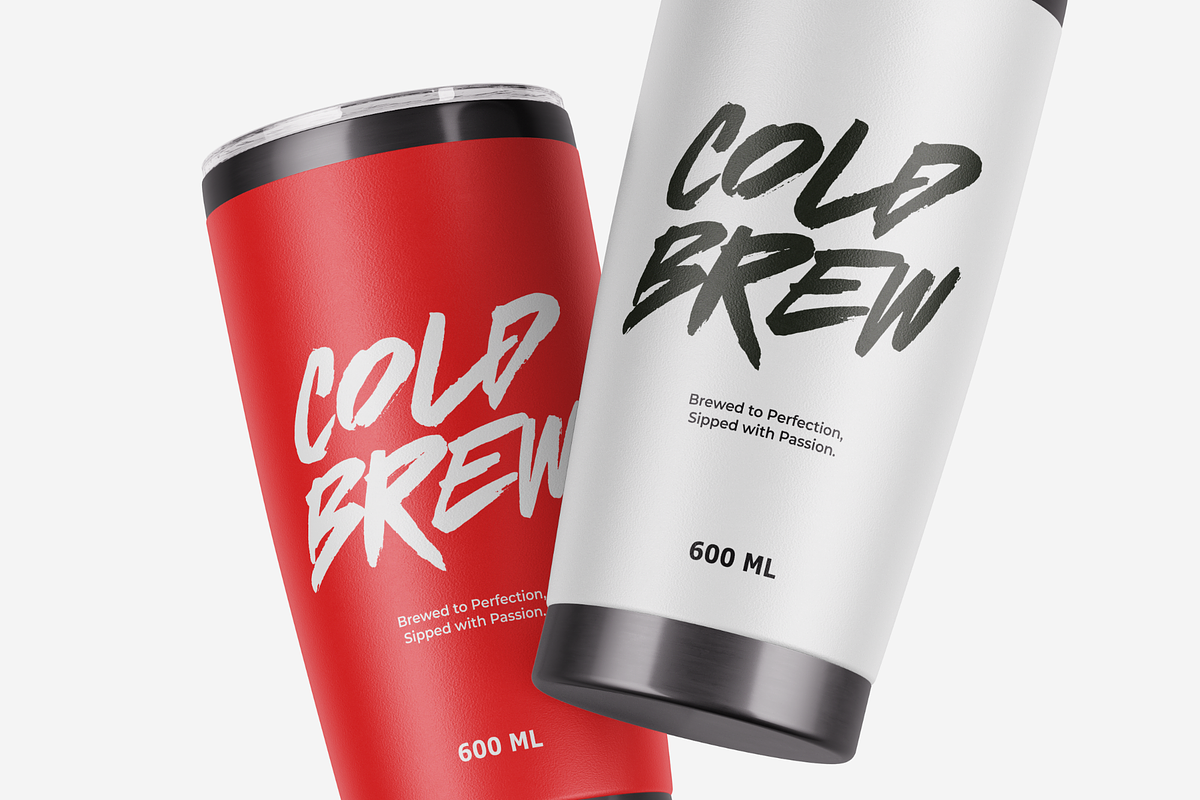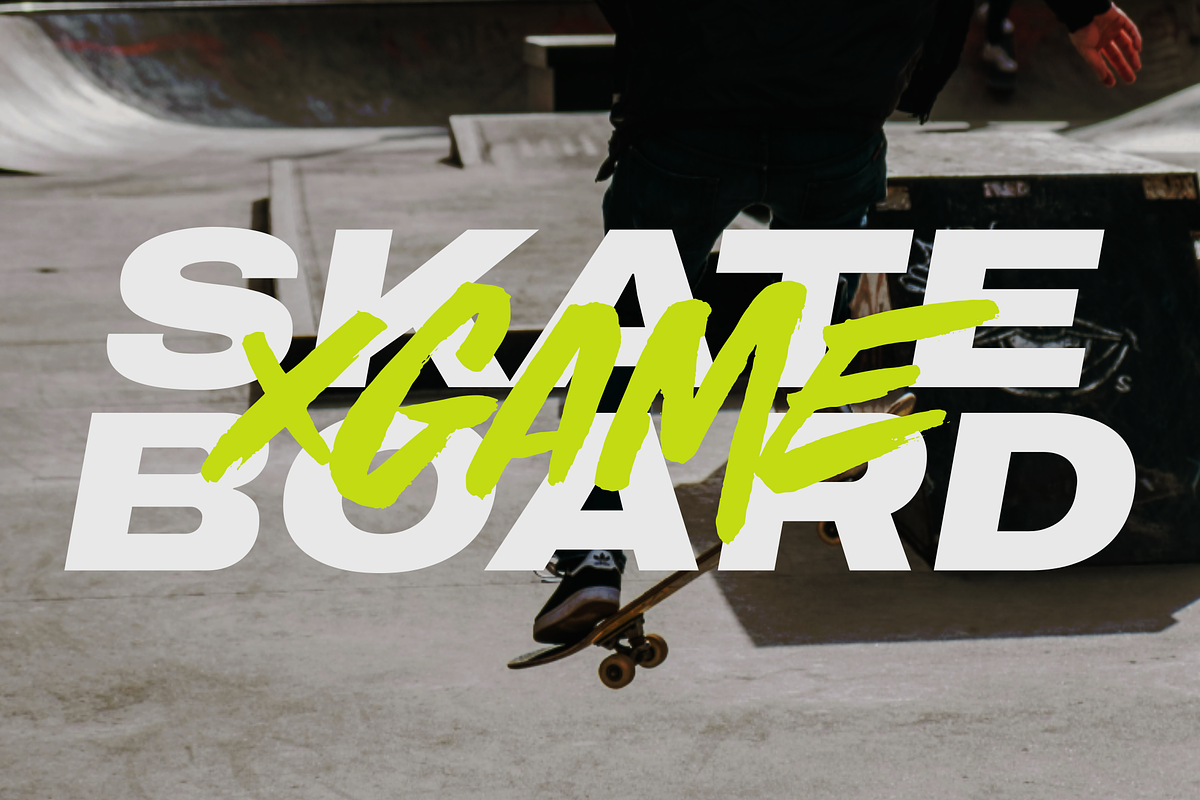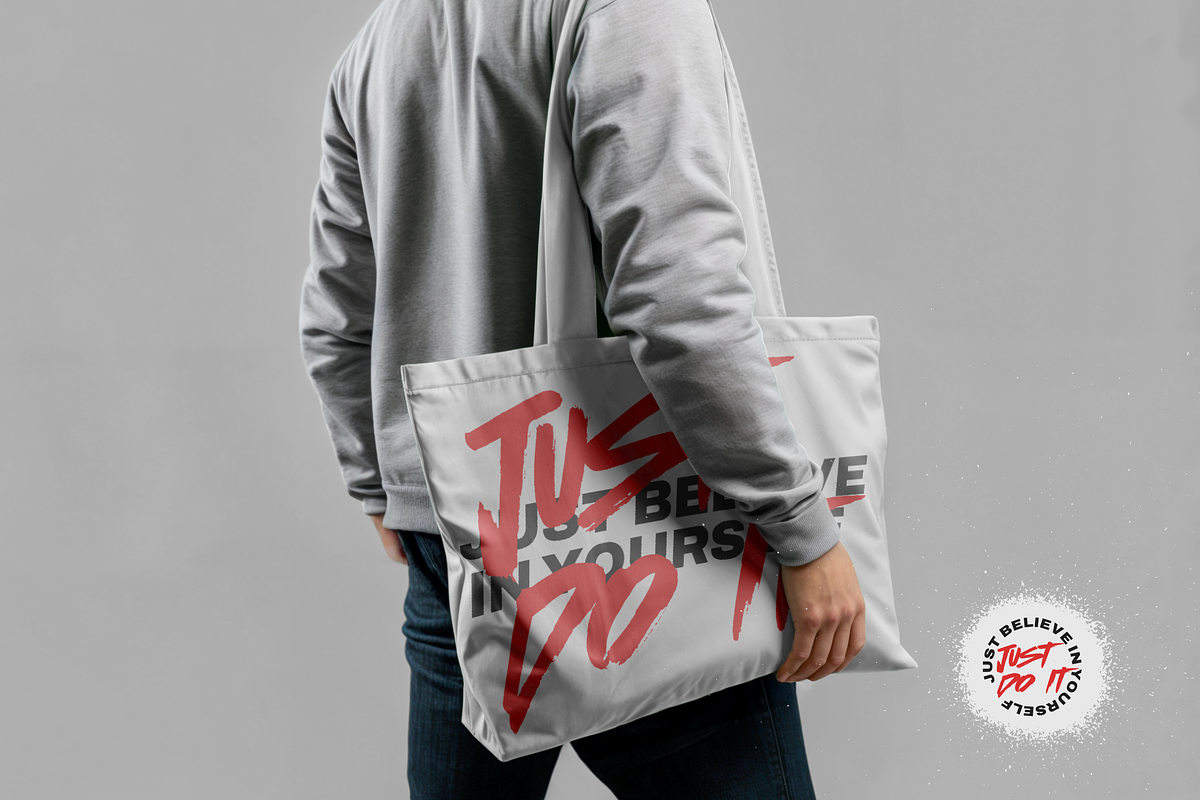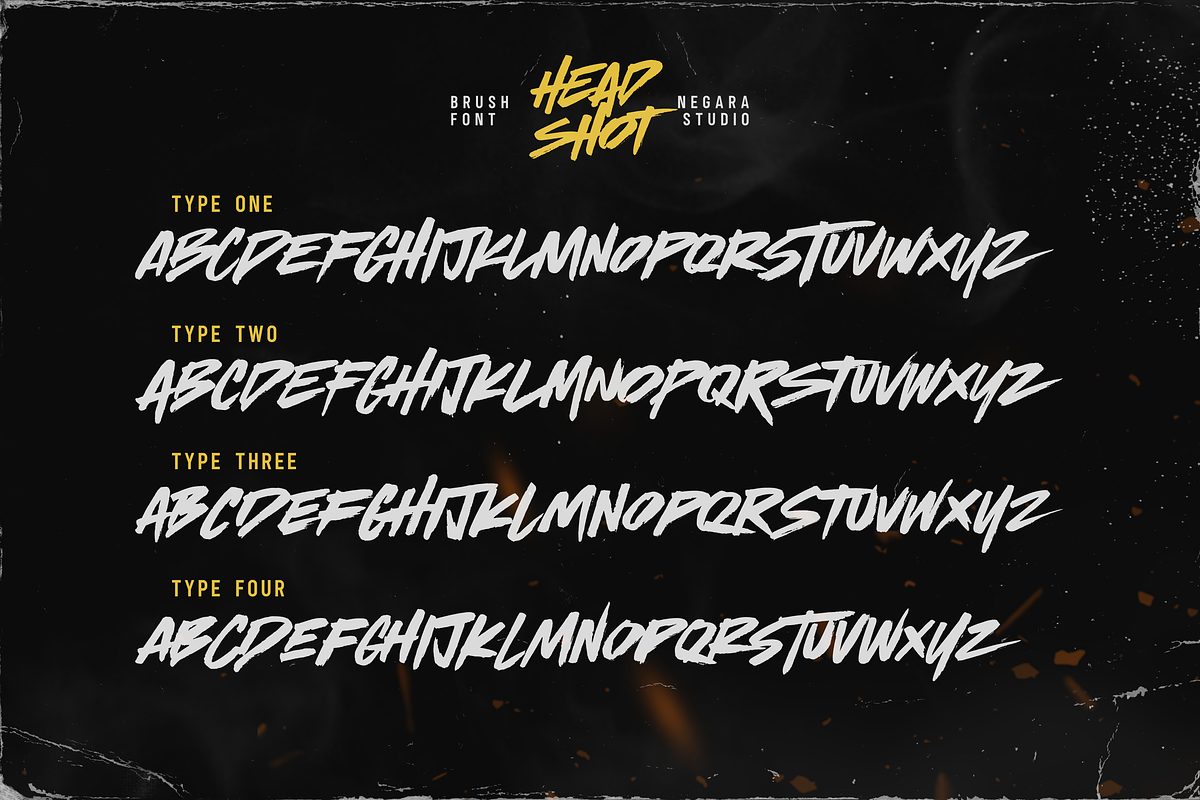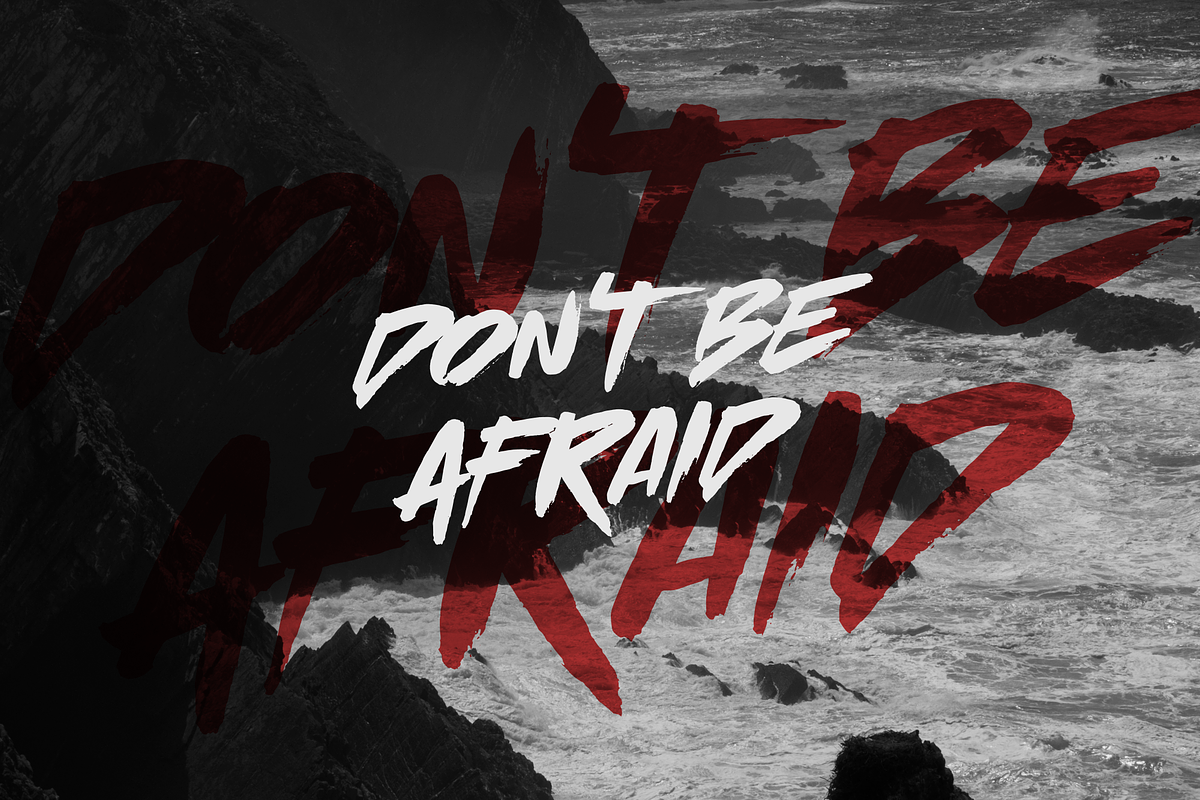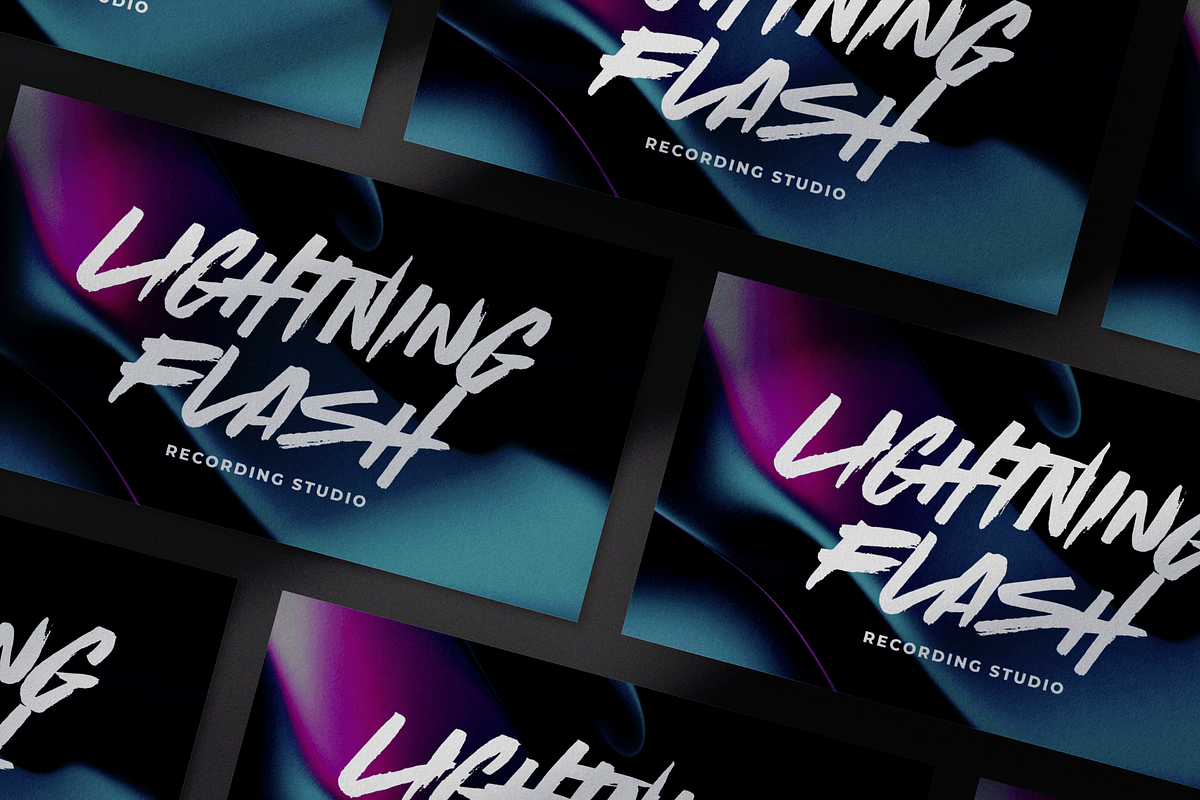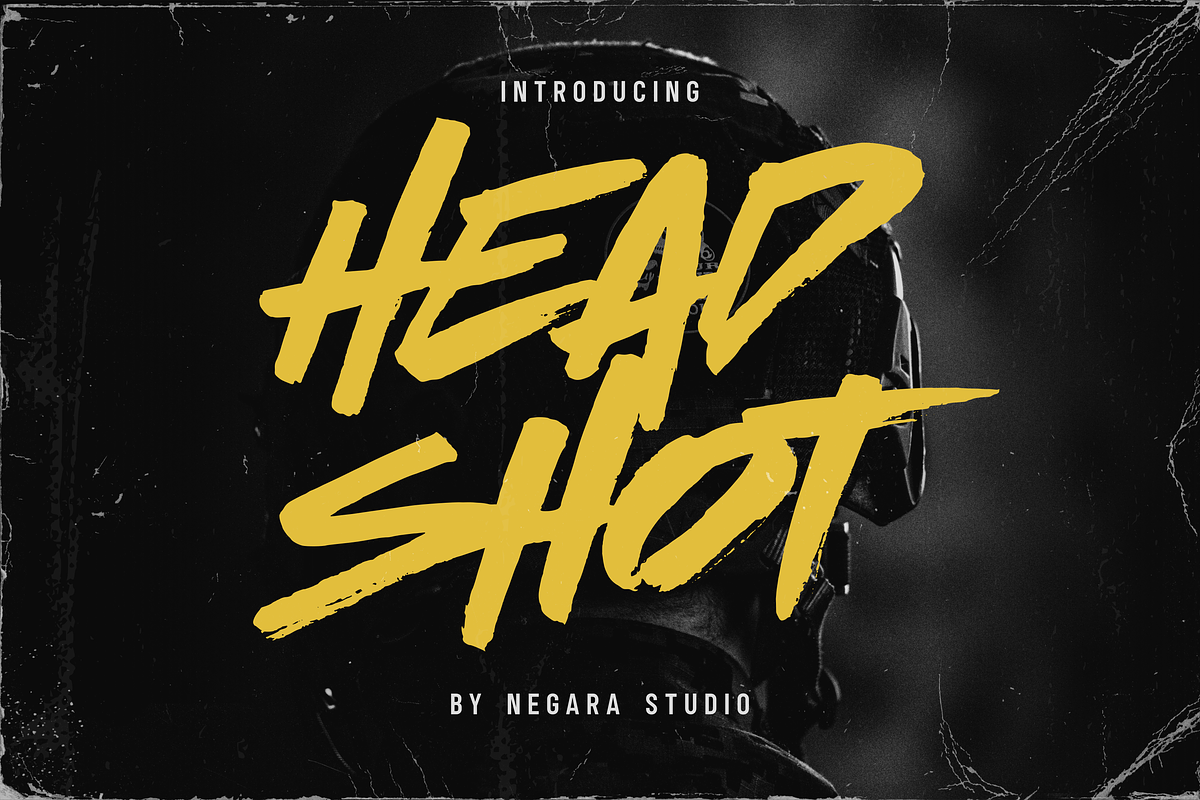
Head Shot
Head Shot is a handwritten font with a bold, rough style in a wet brush texture. we make it using a brush dipped in ink to produce a dense texture. Perfect for logos, product branding, printable templates, posters, flyers, shirts, or for text overlays on any background image. The Acorn Brush font comes in All caps, with punctuation, numbers and also has multilingual support.
Head Shot supports the following languages; English, French, Italian, Spanish, Portuguese, German, Swedish, Norwegian, Danish, Dutch, Finnish, Indonesian, Malay, Hungarian, Polish, Croatian, Turkish, Romanian, Czech, Latvian, Lithuanian, Slovak, Slovenian